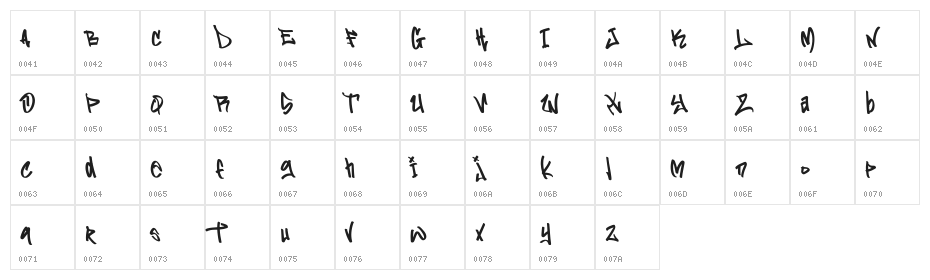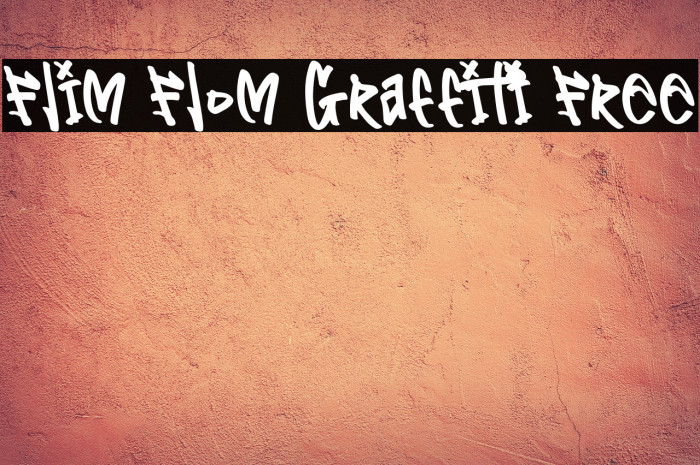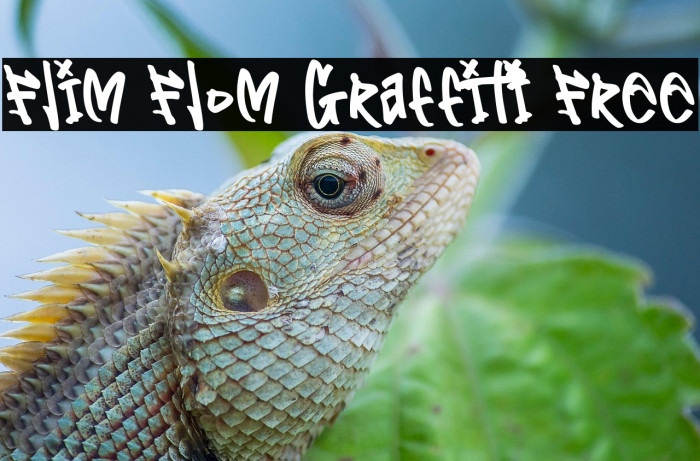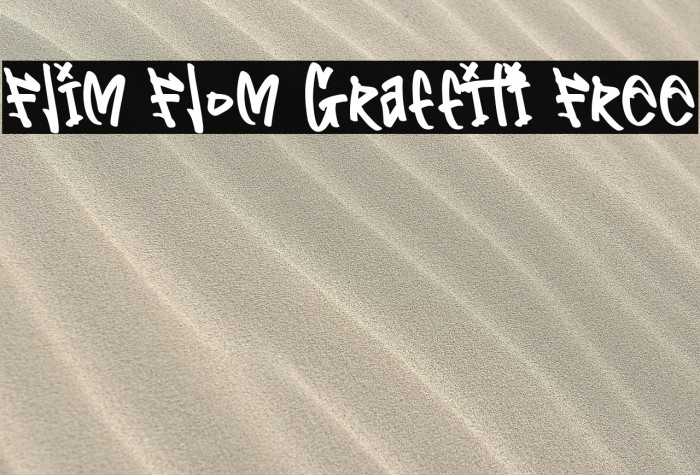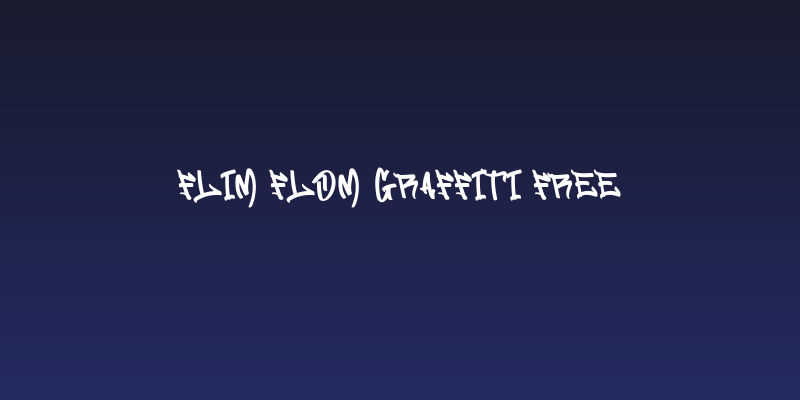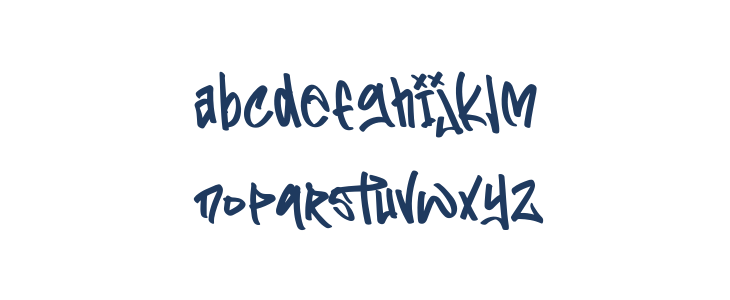
Flim Flom Graffiti Free Font
Flim Flom Graffiti Free Description
This graffiti-style font exudes a bold and urban aesthetic, characterized by its dynamic and energetic strokes. The letters are designed with a sense of movement and flair, featuring sharp angles and exaggerated curves that mimic the spontaneous nature of street art. The uppercase and lowercase letters maintain a consistent style, with a playful yet edgy appearance. The numbers and special characters are equally expressive, adding to the font's overall rebellious and artistic vibe. This font captures the essence of graffiti culture, making it ideal for projects that require a touch of urban authenticity and creativity.
Overall StyleUrban, Graffiti, Artistic
Use CaseLogos, Posters, Album Covers
Proposed ProjectsIdeal for street art-themed designs, urban branding, music album covers, and edgy posters.